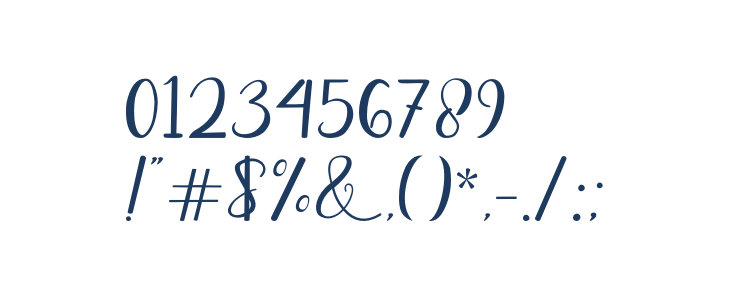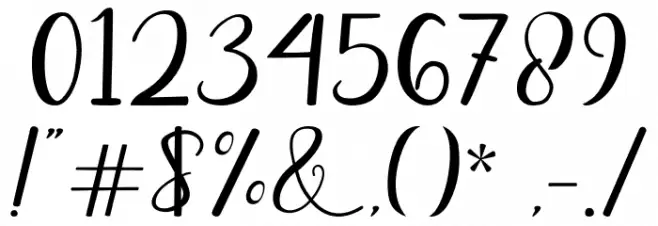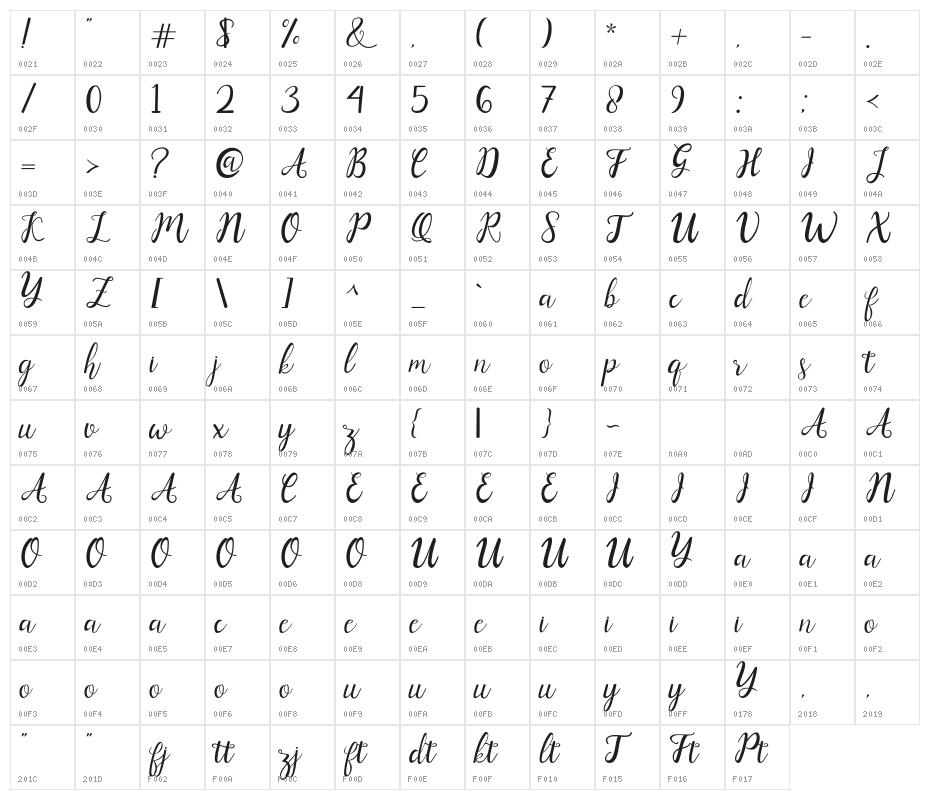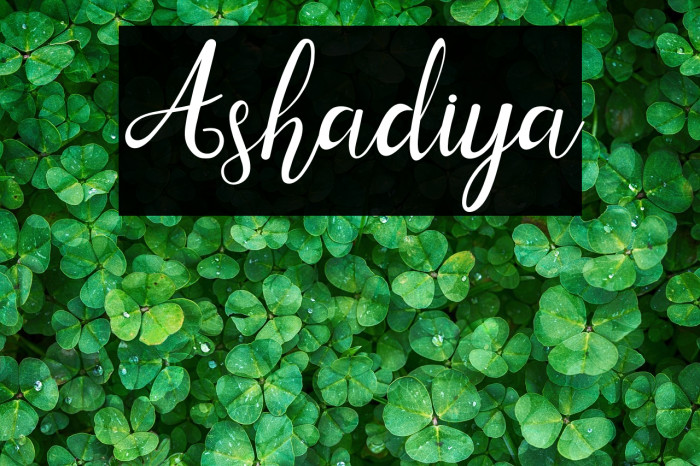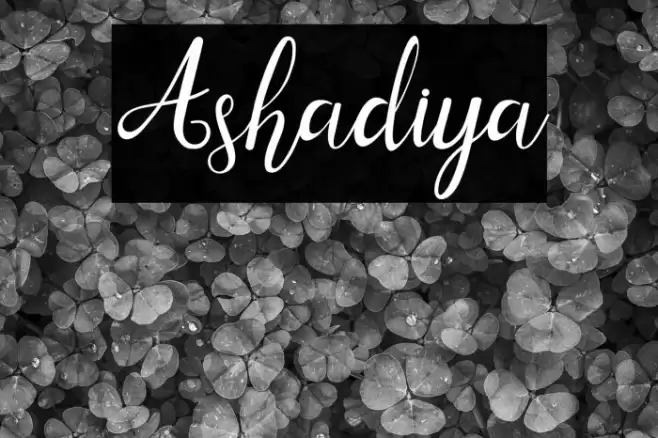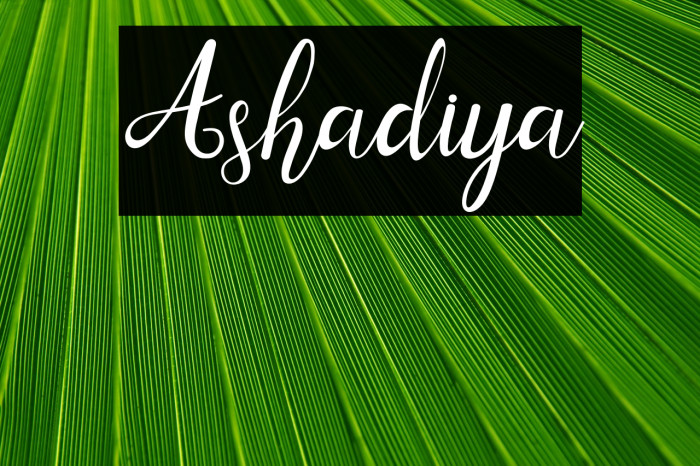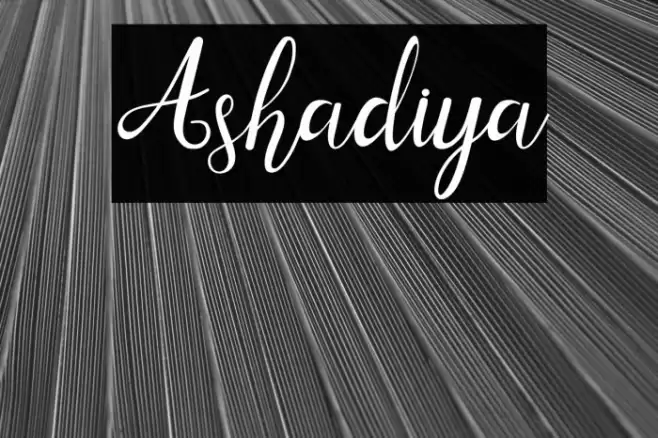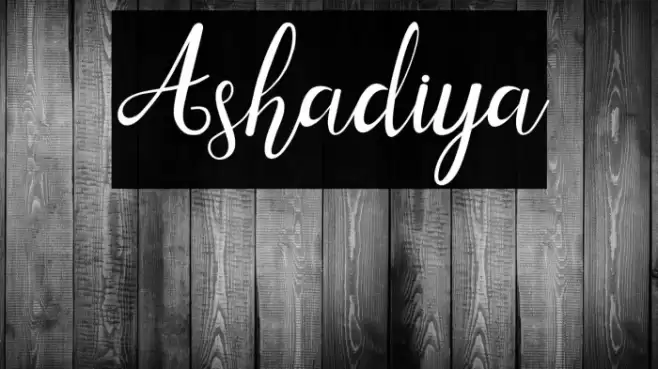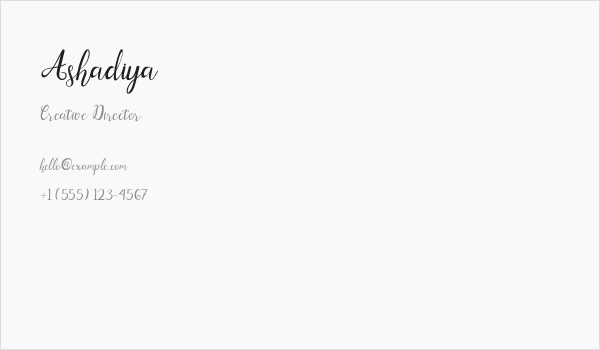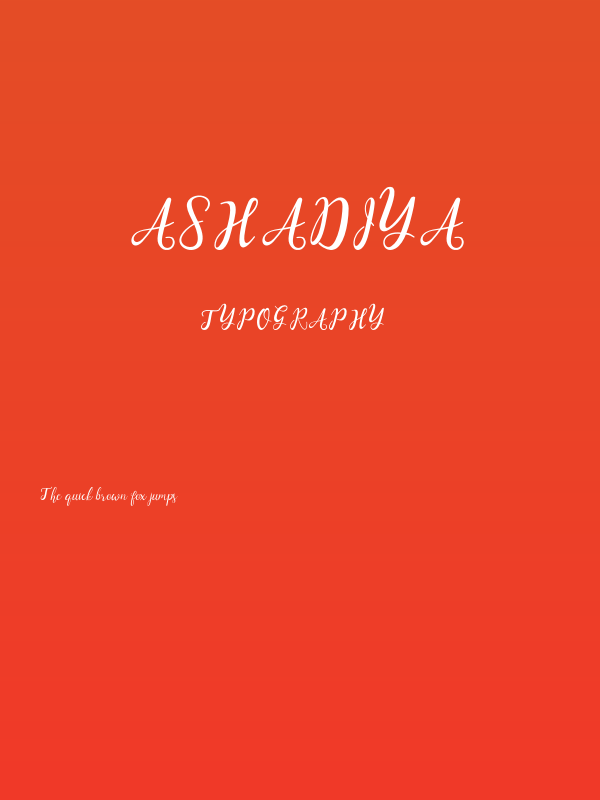
Ashadiya Font
Ashadiya Description
This font exudes elegance with its flowing script style, characterized by smooth, connected strokes that mimic the fluidity of handwriting. The uppercase letters are ornate, featuring delicate loops and flourishes that add a touch of sophistication. The lowercase letters maintain a consistent flow, enhancing readability while preserving the decorative nature. Numbers and special characters are designed with the same attention to detail, ensuring a cohesive look across all text. This font is perfect for projects that require a personal or artistic touch, such as invitations, greeting cards, or branding materials.
Overall StyleElegant, Decorative
Use CaseHeadlines, Logos, Invitations
Proposed ProjectsIdeal for wedding invitations, greeting cards, personal branding, and artistic projects.